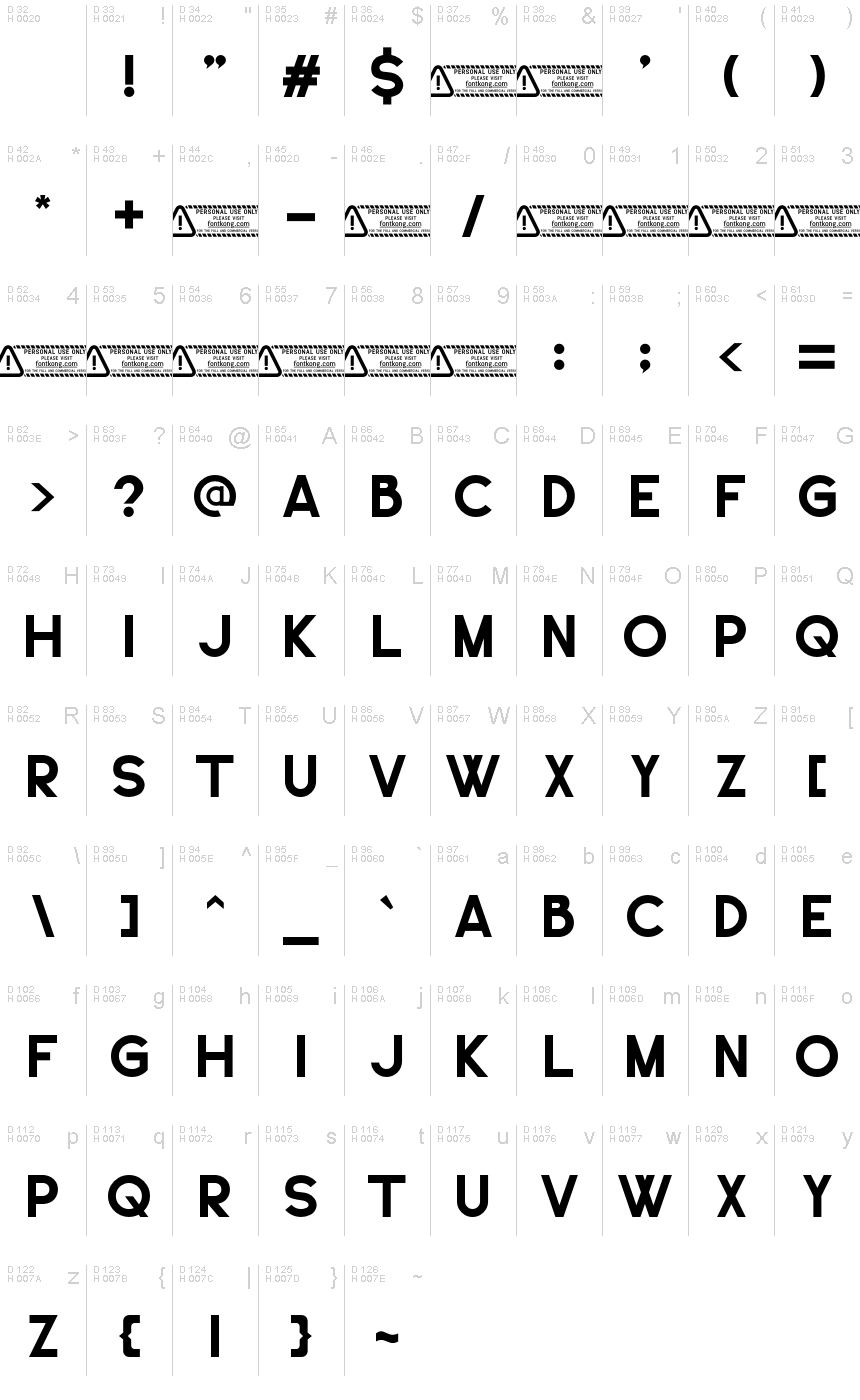
Lemontea
Lemon Tea font is by Kong Font. Lemon Tea is geometric and bold sans serif typeface it has minimal contrast compatible with uppercase and lowercase use for your typographic works from big to small sizes. Lemon Tea provides the basic standard character set.
Lemon Tea is classy & classic, also available for setting medium-legth description text. Perfect for your design works with moody, neutral tone color palette.